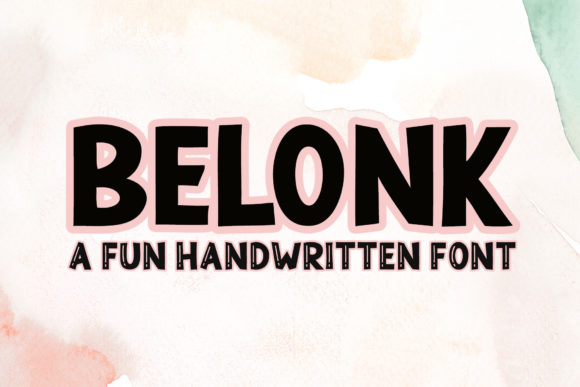
The Ultimate Guide to Belonk Font: Adding Playfulness to Your Designs
I’ll never forget the time I was working on a children’s activity book project, and I just couldn’t find the right font to bring the illustrations to life. The client wanted something bold, fun, and engaging, but not too over-the-top. That’s when I stumbled upon Belonk Font, and it instantly became my go-to choice. In this article, I’ll share my experience with Belonk, its features, and how to make the most of it in your designs.
An Honest Review of Belonk Font
So, what makes Belonk Font so special? Here are some things I love about it:
• Bold and bubbly personality: Belonk Font embodies playfulness and authenticity, making it perfect for children’s activities, school projects, or any design that needs a fun twist.
• Authentic look and feel: The font has a unique, hand-crafted feel that adds a great touch to any design.
• 🎉 Highly versatile: Belonk Font can be used for titles, headings, or even short paragraphs, making it a great addition to any design project.
Of course, no font is perfect, and Belonk has a few small quirks:
• 🤔 Limited use in body text: While Belonk is amazing for headings and titles, it might not be the best choice for longer paragraphs of text.
The Story Behind Belonk Font
Belonk Font was designed with playfulness and authenticity in mind. The designer aimed to create a font that would bring a smile to people’s faces and add a touch of whimsy to their designs. With its bold, bubbly personality, Belonk Font is perfect for anyone looking to add some fun to their projects.
What makes Belonk Font unique? Belonk Font’s bold, bubbly personality and authentic look and feel make it stand out from other fonts.
Is Belonk Font suitable for body text? While Belonk Font can be used for short paragraphs, it’s primarily designed for headings and titles.